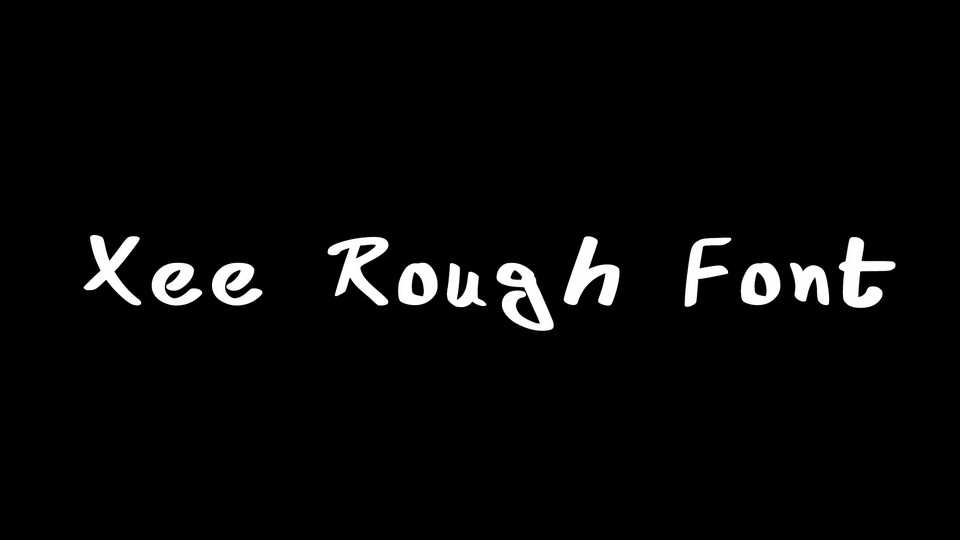
Download Xee Rough font, a simple and natural handwritten typeface. Xee Rough is great for notes, quotes, cards, letters, crafts and more.
Designer: Zubair Anwar